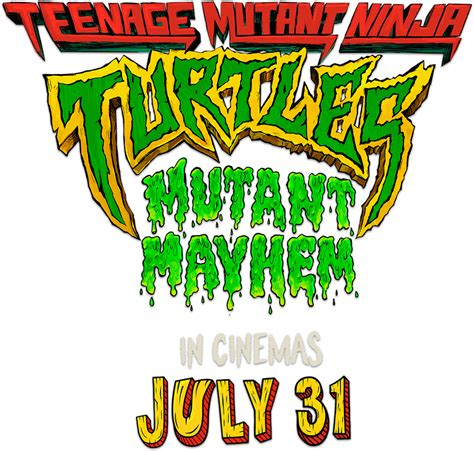
Tmnt Mutant Mayhem Font. Jun 13, 2023 at 08:42. Teenage mutant ninja turtle mutant mayhem.
Web this thick, distressed typeface is based on the popular clasic teenage mutant ninja turtles logo. Samurai terrapin by iconian fonts. Teenage mutant ninja turtle mutant mayhem. Jun 13, 2023 at 08:42.
Jun 13, 2023 at 08:42. Samurai terrapin by iconian fonts. Jun 13, 2023 at 08:42. Teenage mutant ninja turtle mutant mayhem. Web this thick, distressed typeface is based on the popular clasic teenage mutant ninja turtles logo.